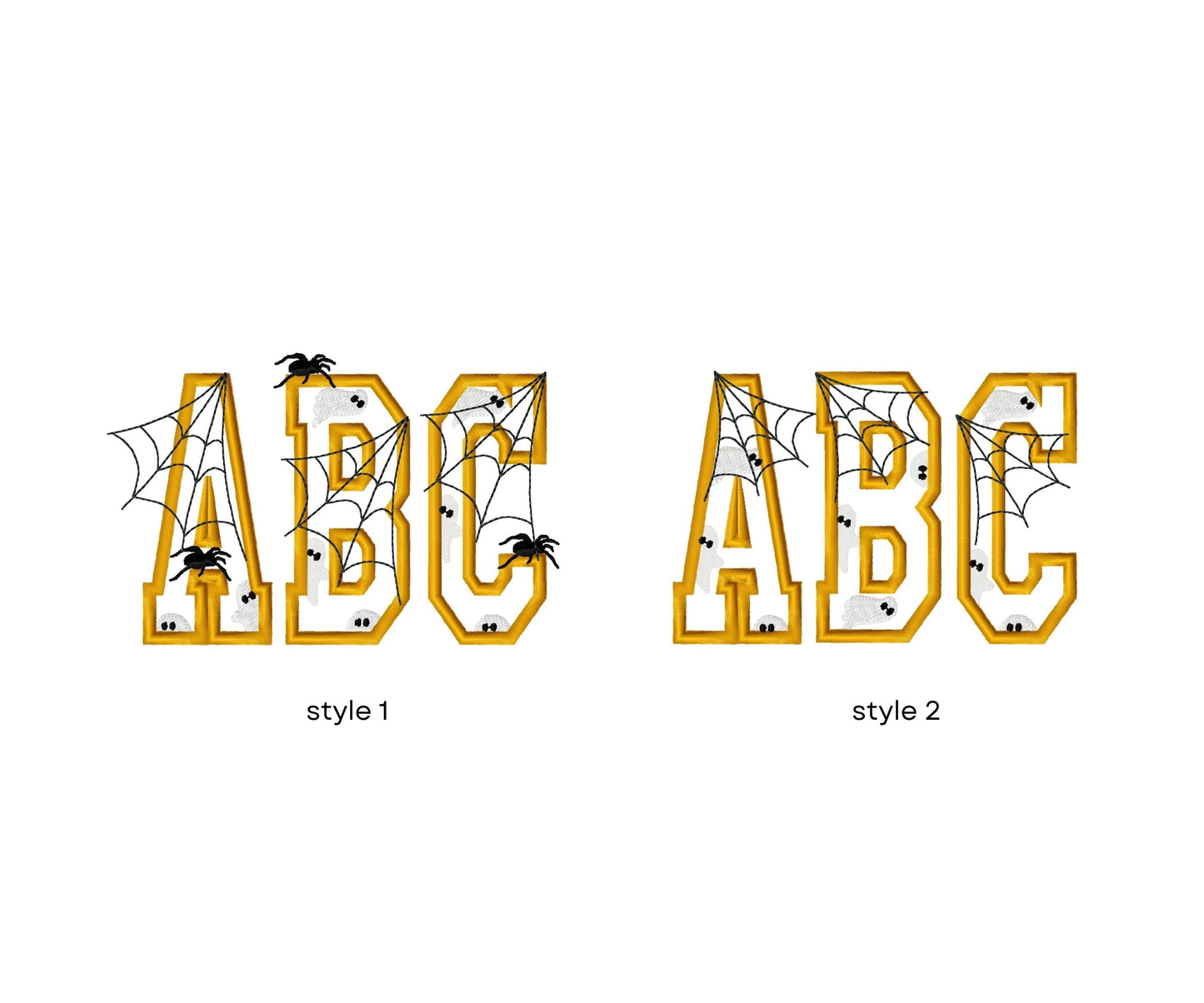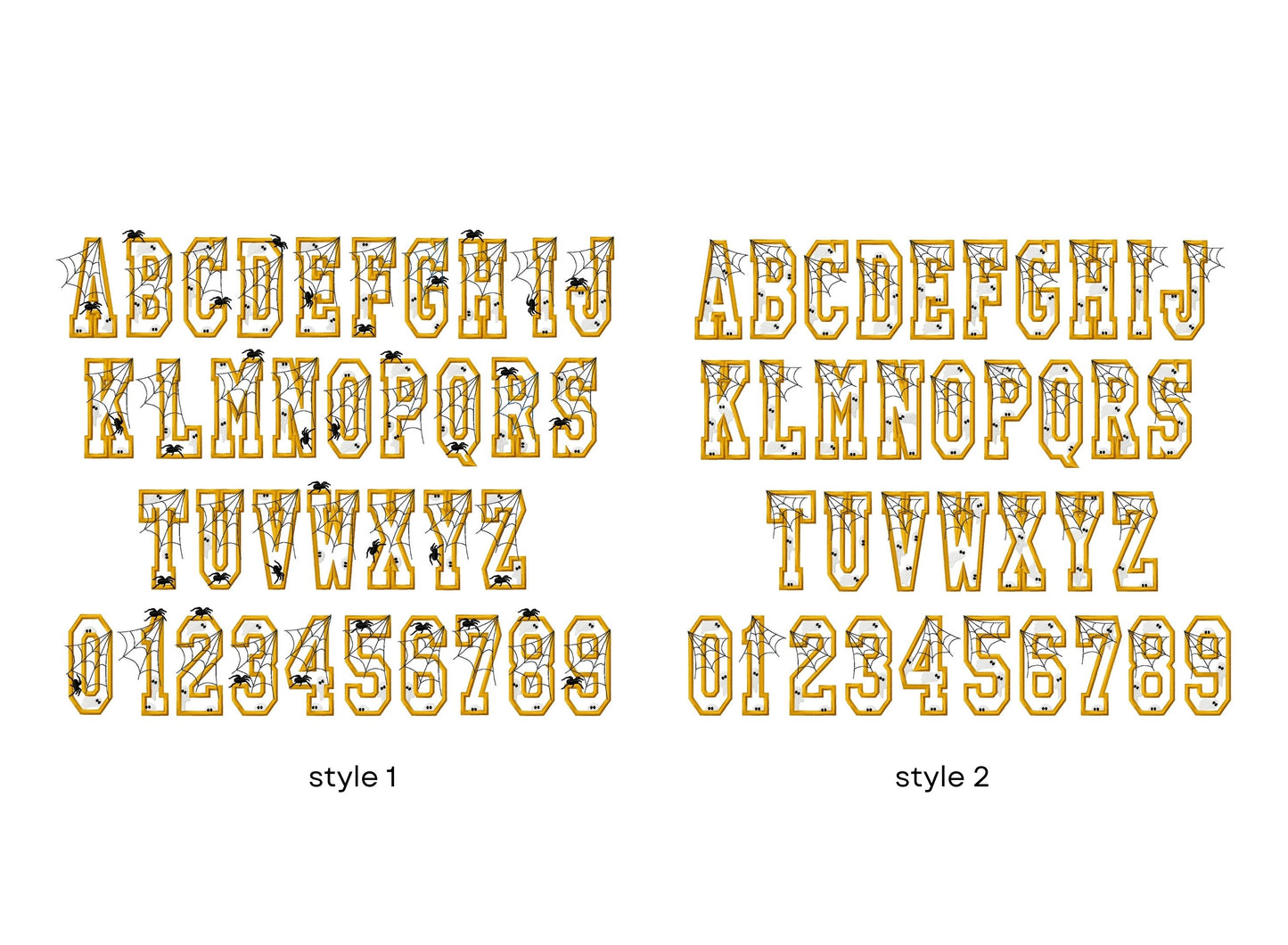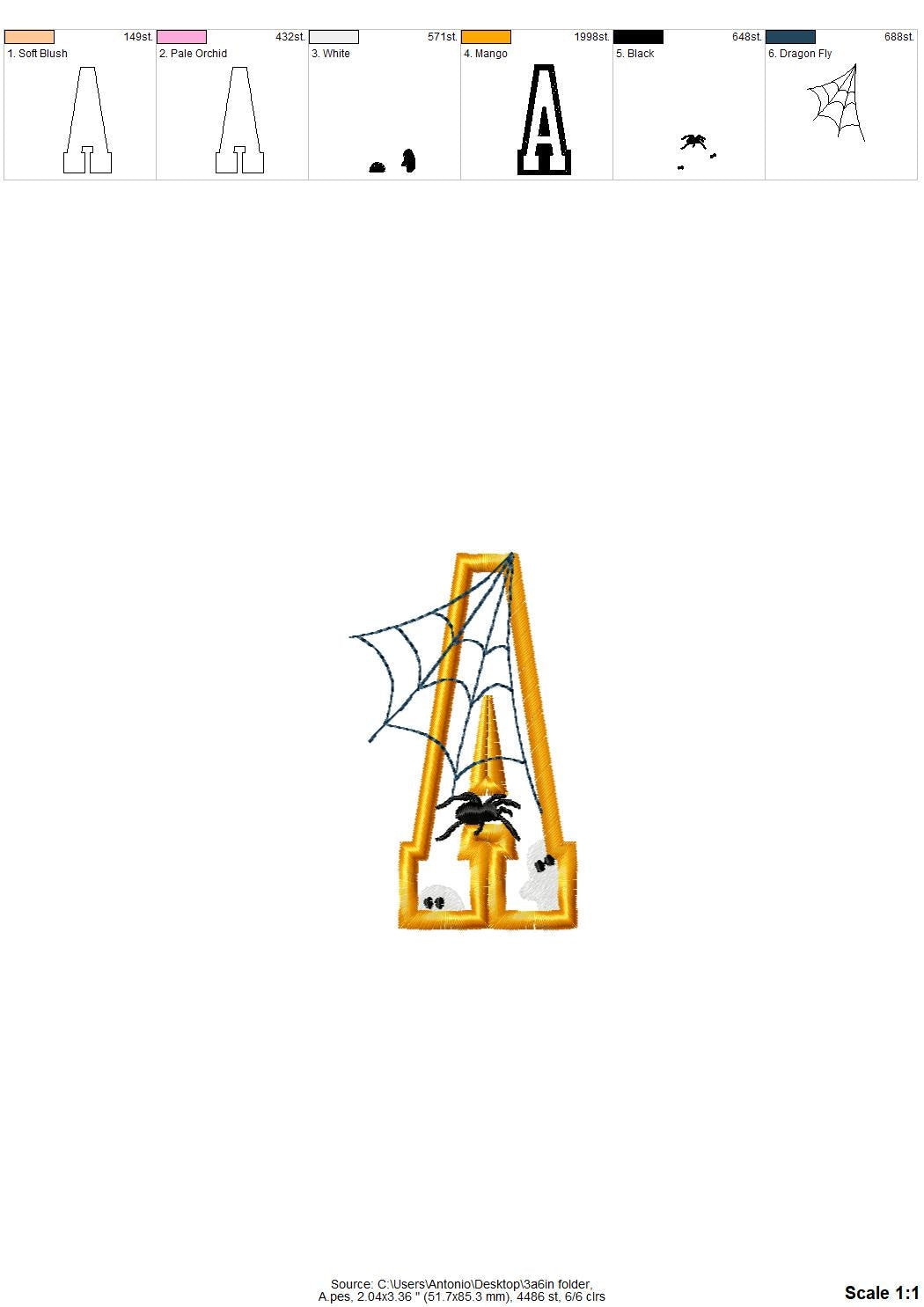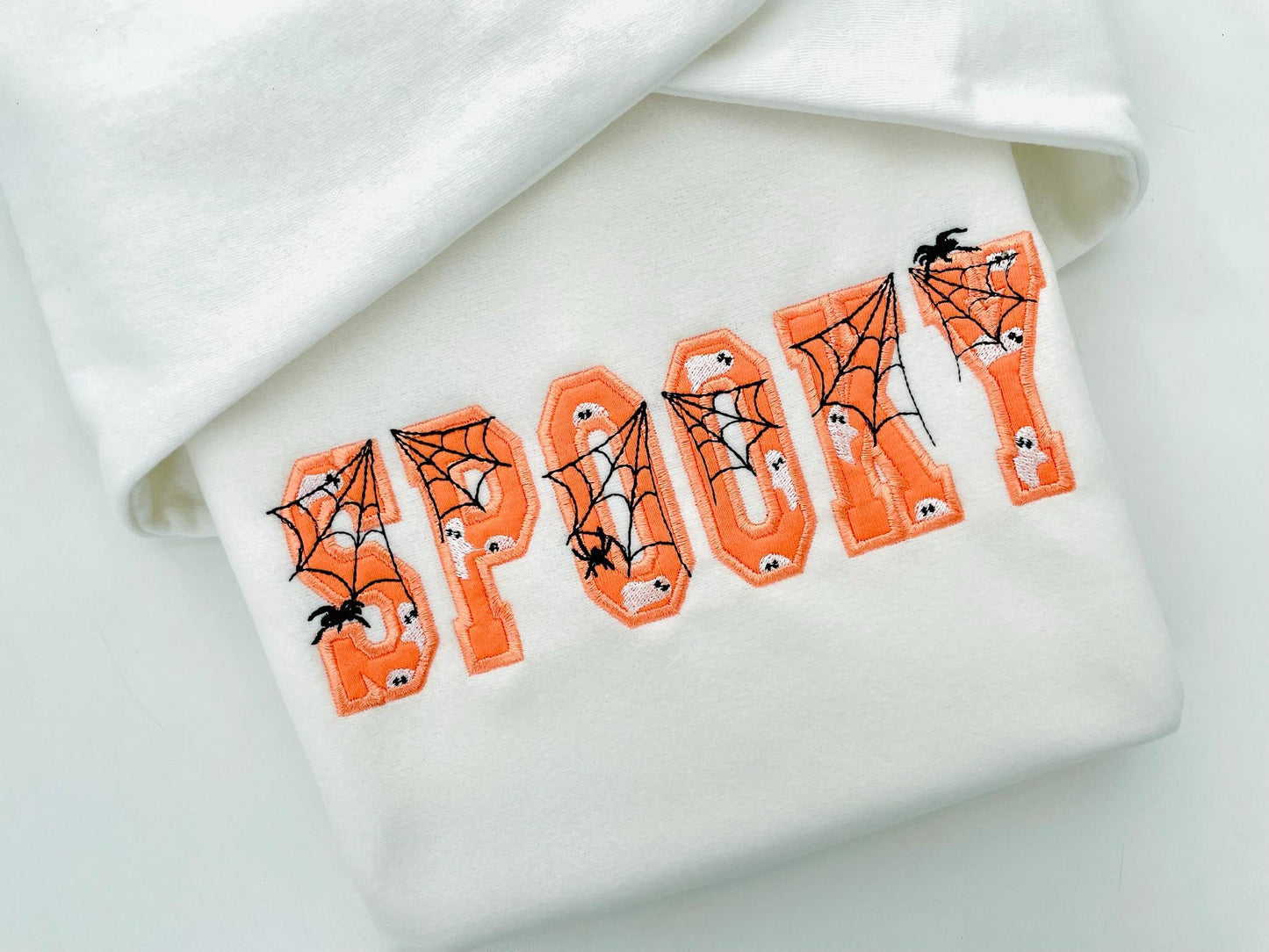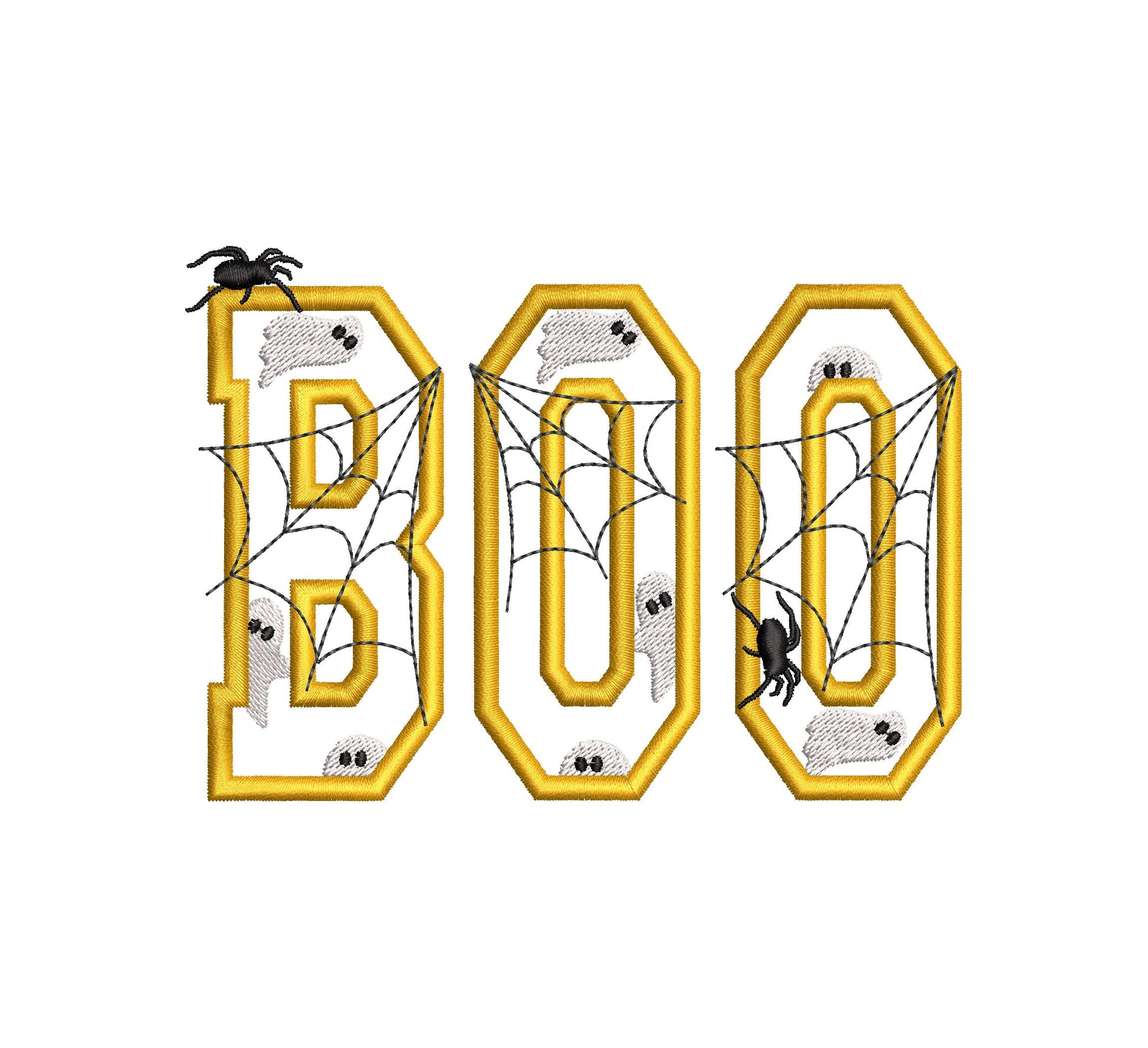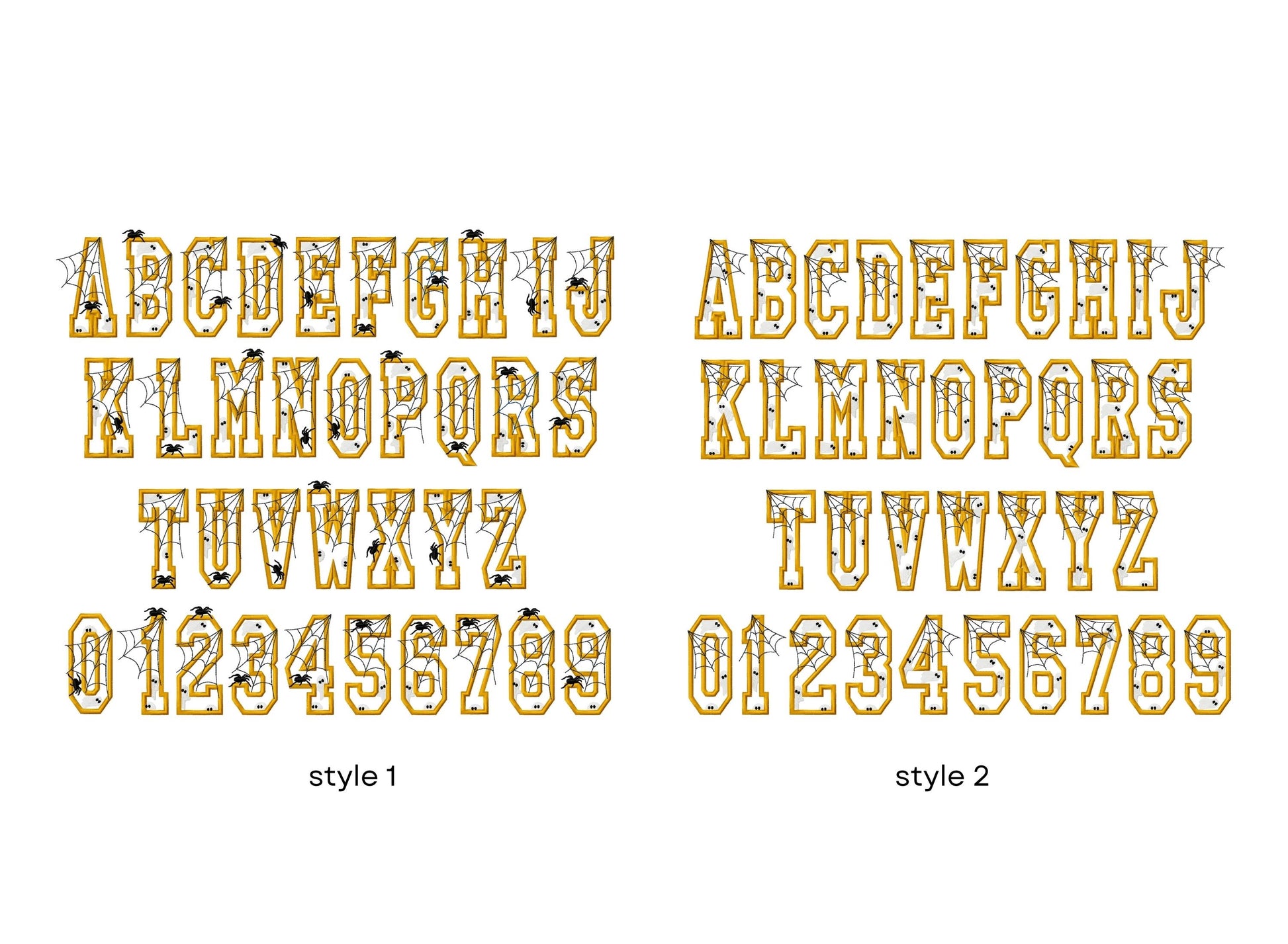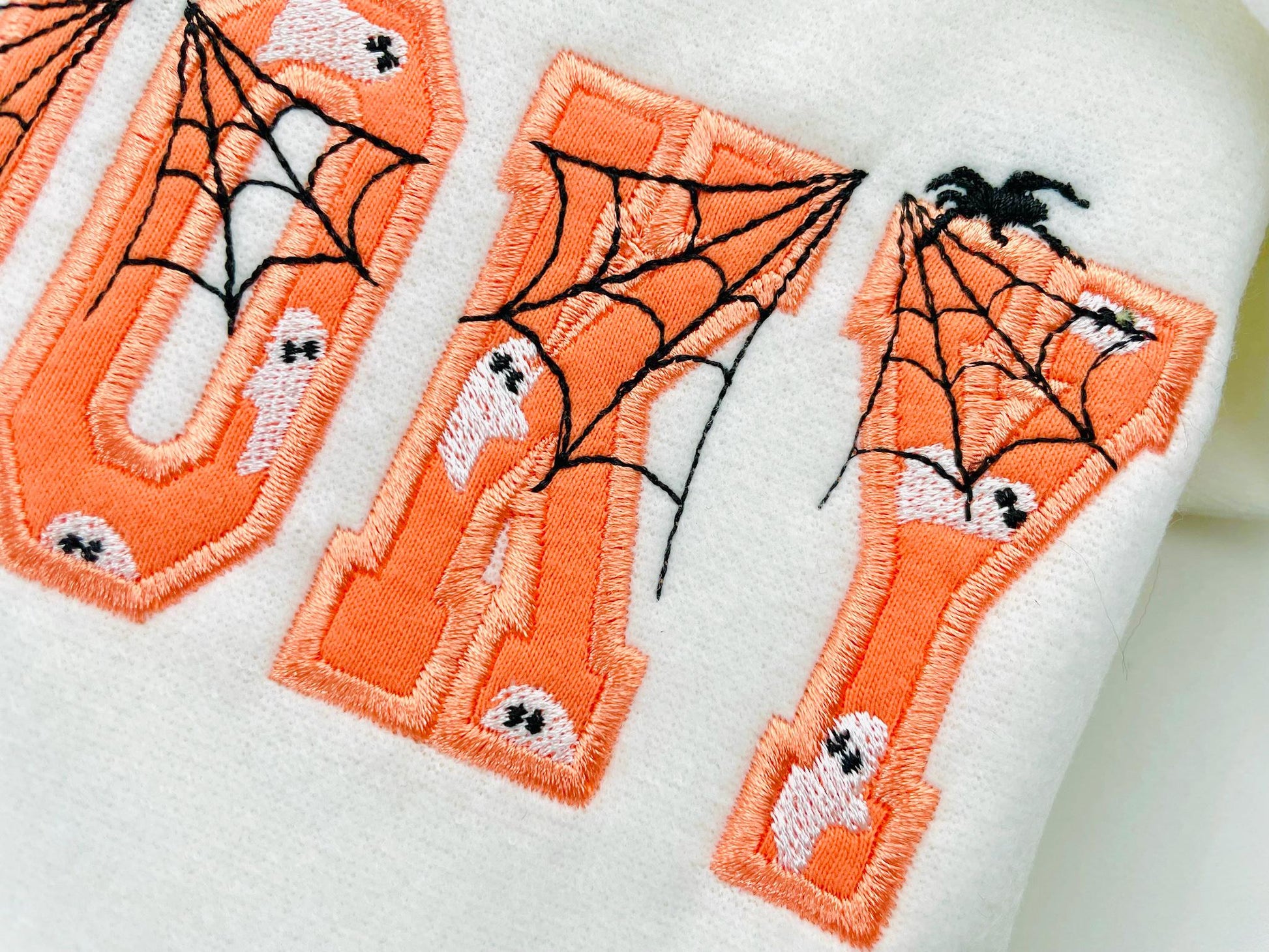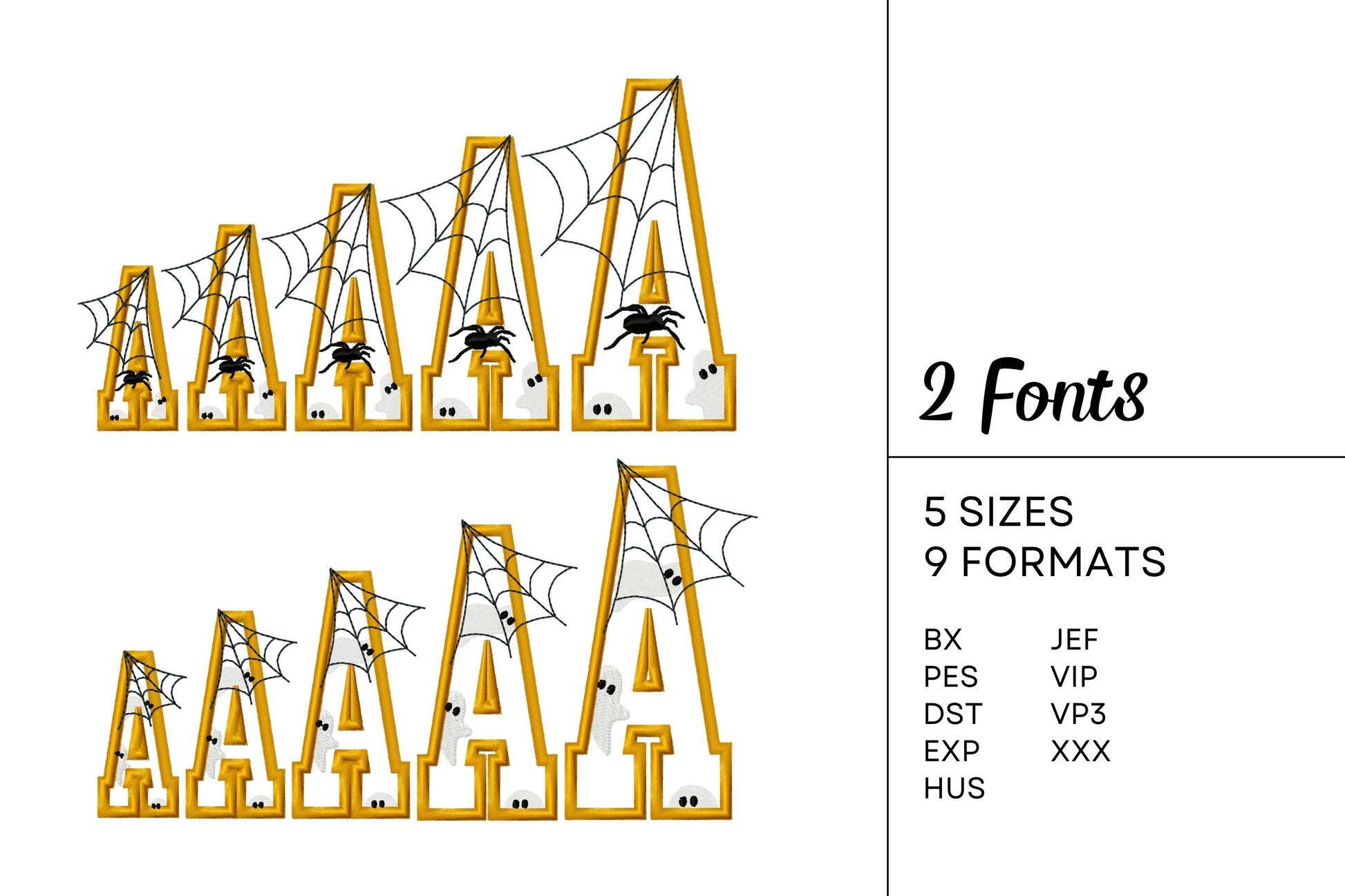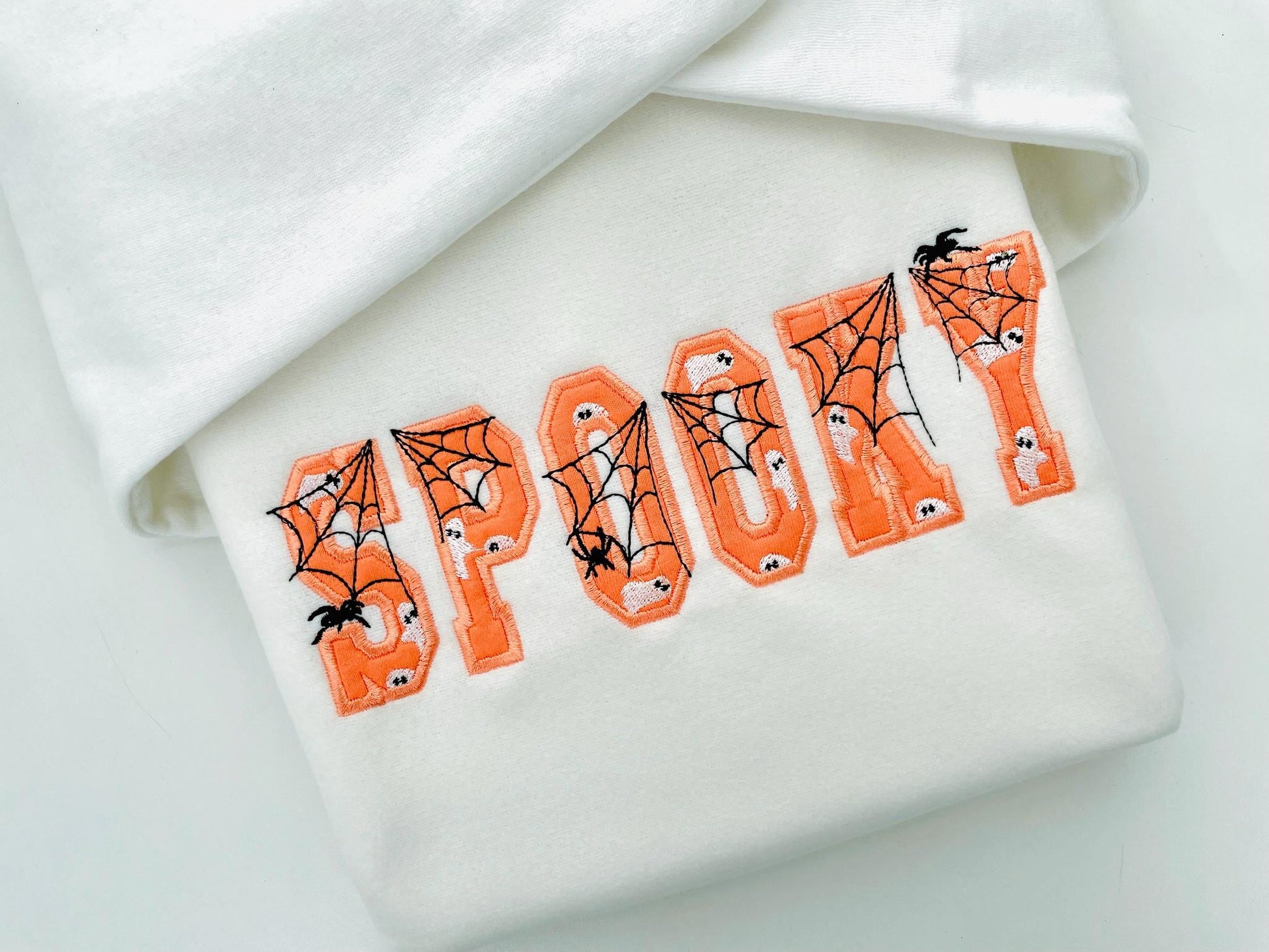
Or click to open the linkTwo Halloween varsity applique fonts with a peeking ghost and spider web. Spooky fun for kids' shirts, treat bags and pillows.
Two fonts: one with a peeking ghost, spider web and spider, one with a ghost and web. Each has capital letters A to Z and numbers 0 to 9, stitched as applique, in five sizes: 2.5, 3, 3.6, 4.4 and 5.3 inches.